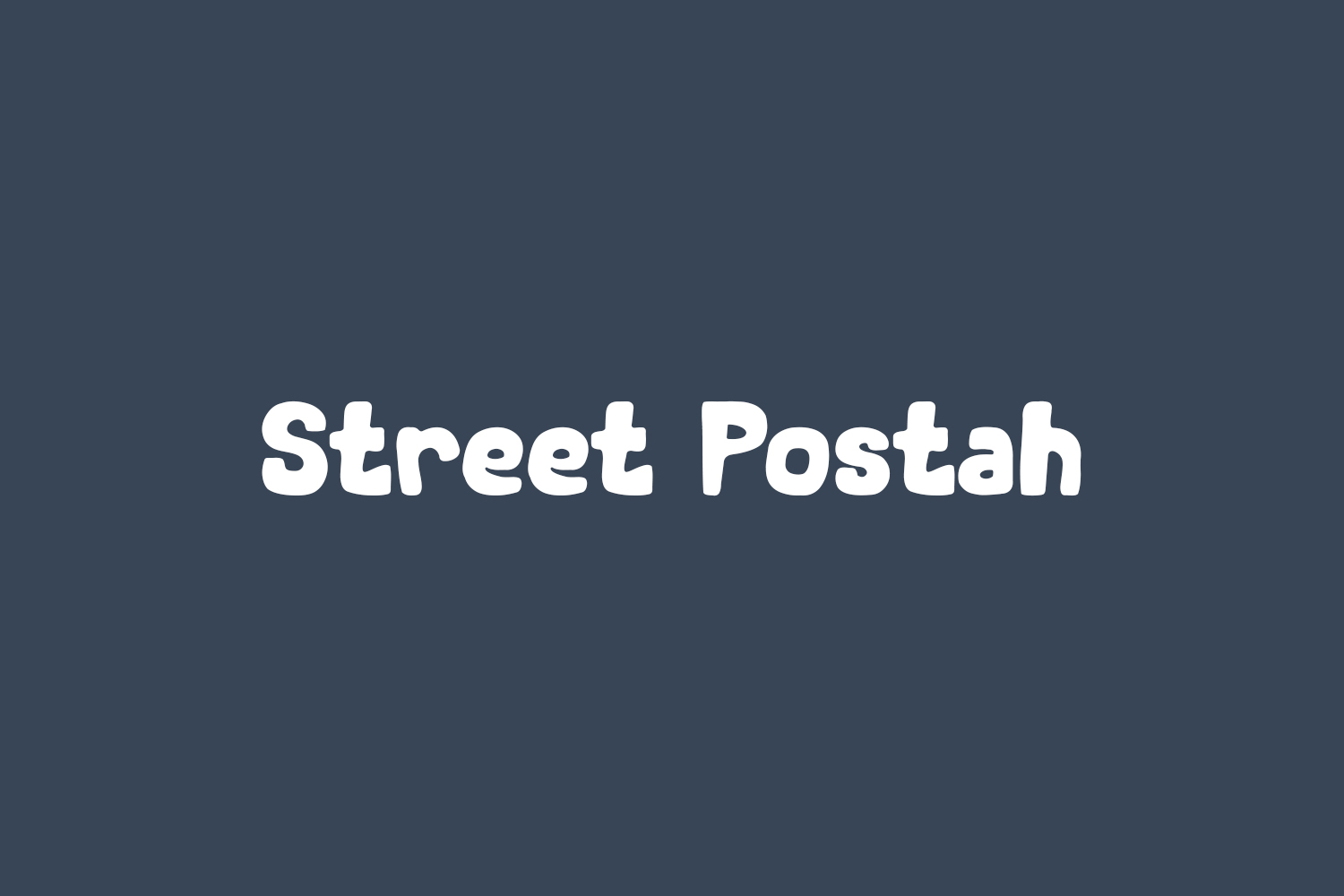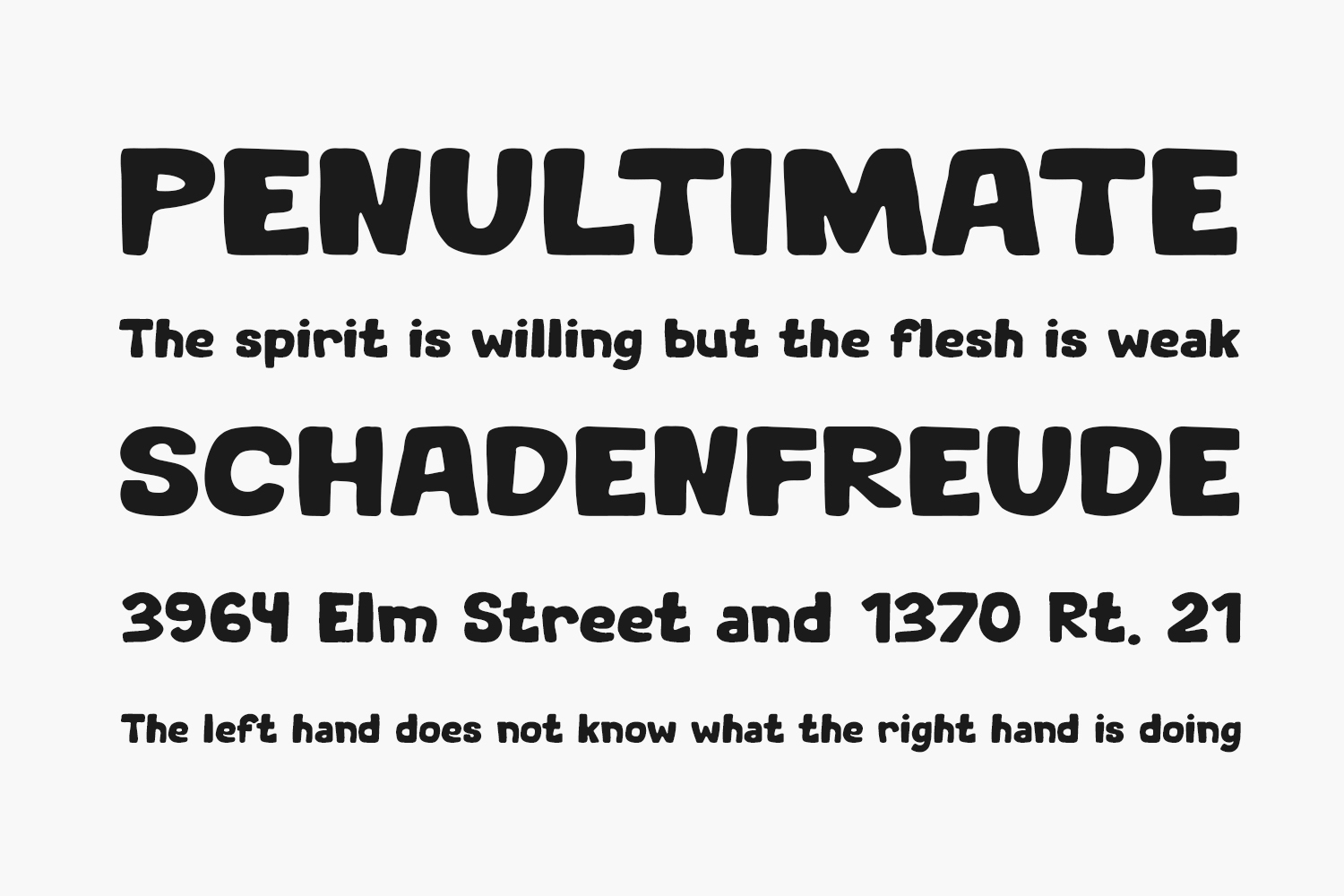
Street Postah Free Font, the embodiment of boldness and thickness, empowers you to fashion vibrant and playful designs that effortlessly complement a wide range of branding and packaging projects. This chubby font strikes the ideal balance between fun and creativity, capturing attention instantly and leaving a lasting impression. Elevate your design game with Street Postah and witness its magnetic charm in action. Street Postah Free Font is free for personal use only. Please purchase the full version for commercial use.
Designed by Pinisiart